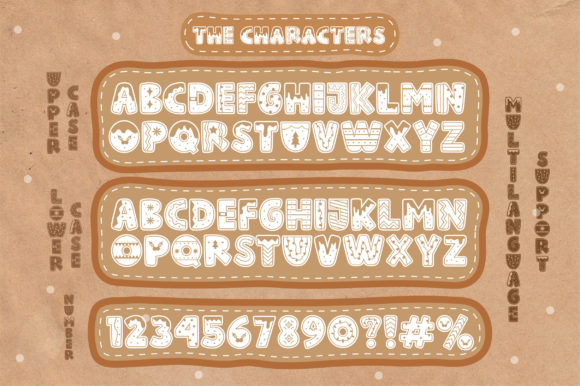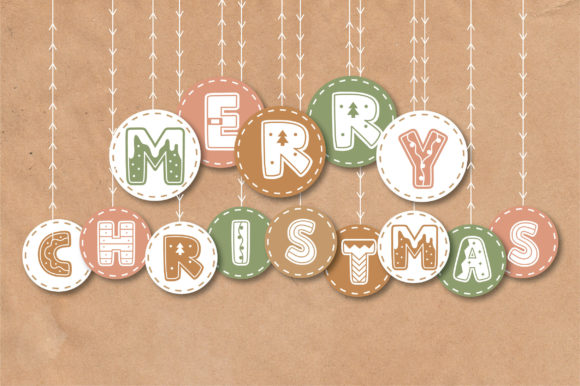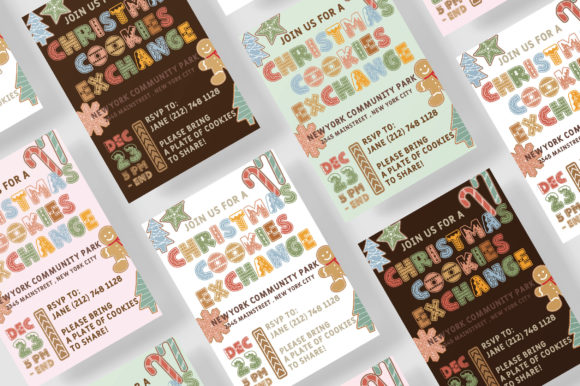
The Sweet Sound of Design: Introducing Jingle Cookies Font
There’s something magical about the holiday season – the twinkling lights, the warmth of hot cocoa, and the joy of creating something special for loved ones. As a designer, you know that feeling all too well. You’re brainstorming ideas for your next project, and suddenly, a spark of inspiration strikes. You envision a winter wonderland scene, complete with snowflakes, holly, and a dash of festive cheer.
That’s where Jingle Cookies Font comes in – a cozy and sweet decorative font designed to bring your winter holiday designs to life. With its playful, whimsical feel, this font is the perfect addition to your next project. Whether you’re creating a festive card, a holiday-themed blog post, or a social media graphic, Jingle Cookies Font adds a touch of warmth and personality to your design.
- Unique Characteristics: Whimsical, hand-drawn design with a festive holiday feel, perfect for cookie-themed branding, packaging, and advertising
Jingle Cookies Font Review
Overall, I’m pleased with the Jingle Cookies Font. The font’s design ✨ captures the festive spirit of the holiday season, making it perfect for Christmas-themed projects. The font’s bold, playful lines ✨ evoke a sense of excitement and energy, while the varied letterforms ✨ add a touch of whimsy.
One of the standout features of Jingle Cookies Font is its versatility. It works well ✨ in a range of applications, from social media graphics to merchandise and packaging. The font is also highly customizable, allowing users to adjust the size, color, and spacing to suit their design needs.
- ⚠️ The font may be too bold for some designs, overpowering other elements.
- ⚠️ Some users may find the font’s playful style too kitschy or over-the-top.
- ⚠️ The font is not ideal for body text, as the varied letterforms can make it difficult to read.
Despite these limitations, I think Jingle Cookies Font is a great addition to any designer’s toolkit. It’s perfect for designers looking to add a touch of holiday cheer to their projects. With a little creativity and restraint, this font can help take designs to the next level.
Use the Jingle Cookies Font for festive and holiday-themed designs.
Pair it with other playful fonts for a fun and whimsical look.
Use it for baking-related designs, such as recipe cards or gift tags.
Holiday greeting cards and invitations.
Baking-themed party decorations and accessories.
Playful social media posts and graphics.
Alternatives to Jingle Cookies Font
Bakers Script
Bakers Script is a beautiful, cursive font perfect for baking and cooking-related designs. It’s ideal for creating a warm and inviting atmosphere, making it perfect for Christmas or holiday-themed projects. Bakers Script is more elegant and sophisticated compared to Jingle Cookies Font, which is more playful and childish.
Creamistry
Creamistry is a modern, elegant font that works well for baking and dessert-related designs. It’s perfect for creating a clean and minimalist look, making it ideal for modern bakeries or food blogs. Compared to Jingle Cookies Font, Creamistry is more versatile and can be used for a wide range of designs, from baking to fashion.
Cupcake Script
Cupcake Script is a whimsical, cursive font that’s perfect for cupcake and baking-related designs. It’s ideal for creating a playful and fun atmosphere, making it perfect for children’s parties or dessert-themed projects. Cupcake Script is more playful and fun compared to Jingle Cookies Font, which is more elegant and sophisticated.
Buttercream
Buttercream is a beautiful, cursive font that’s perfect for baking and dessert-related designs. It’s ideal for creating a warm and inviting atmosphere, making it perfect for Christmas or holiday-themed projects. Compared to Jingle Cookies Font, Buttercream is more elegant and sophisticated, with a more refined and delicate feel.